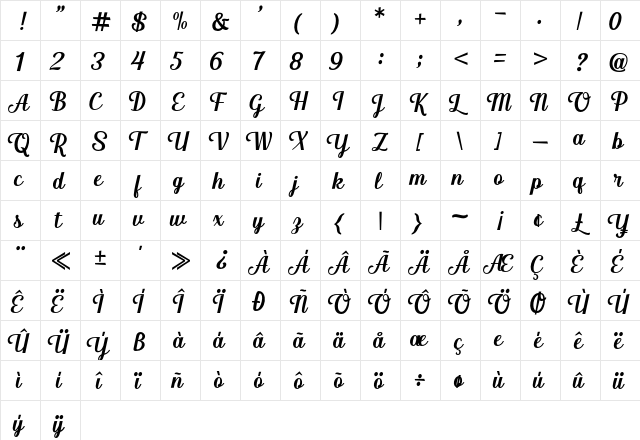
Krusyida Script Regular Font Preview
Krusyida Script Regular
Krusyida Script Regular Font Details
| Foundry | Aqeela Studio |
| Designer | Aqeela Studio |
Design Context for Krusyida Script Typeface
Krusyida Script flows with the natural rhythm of handwritten lettering, making it ideal for designs that call for warmth and personal expression.
Font Pairing: Combine Krusyida Script with a simple geometric sans for maximum contrast — the tension between flowing curves and clean structure is a classic typographic pairing.
Pro Tip: Use Krusyida Script for short runs of text — names, titles, or taglines. Extended body copy in script faces tires the eye quickly.